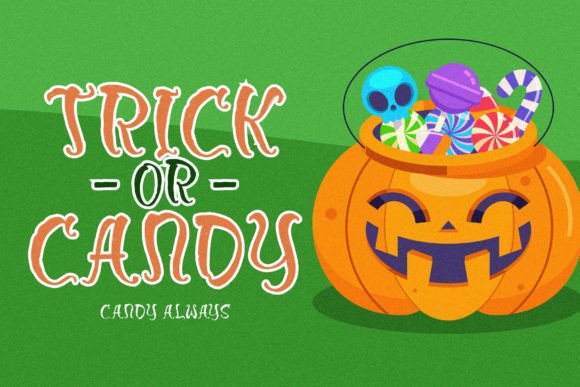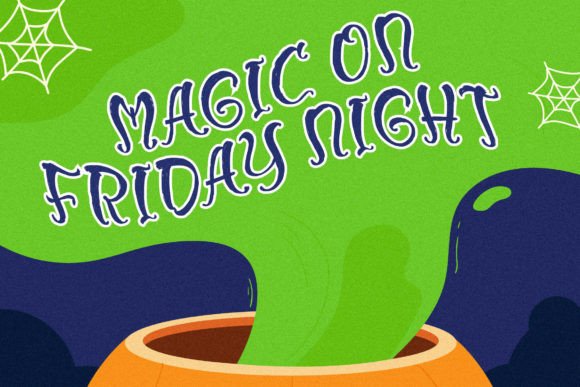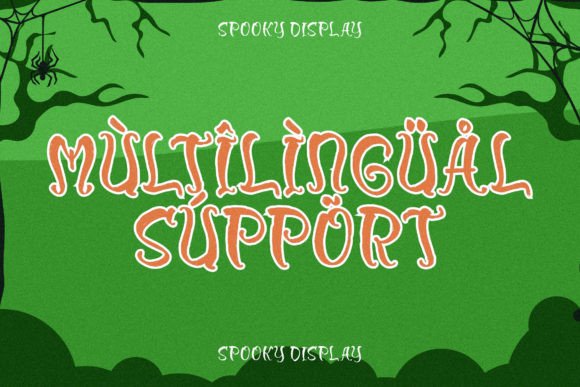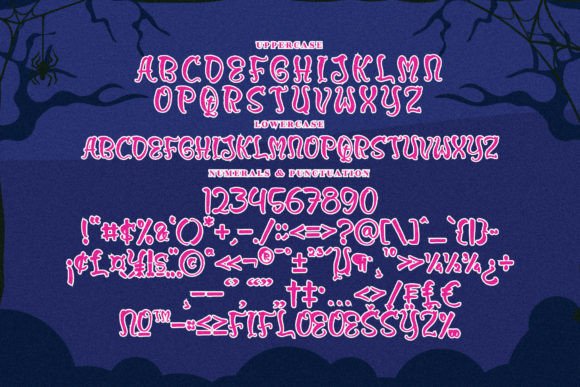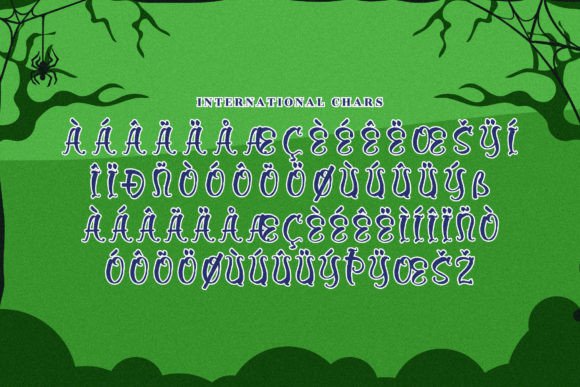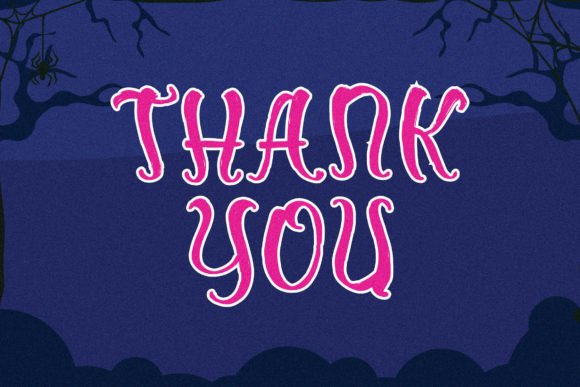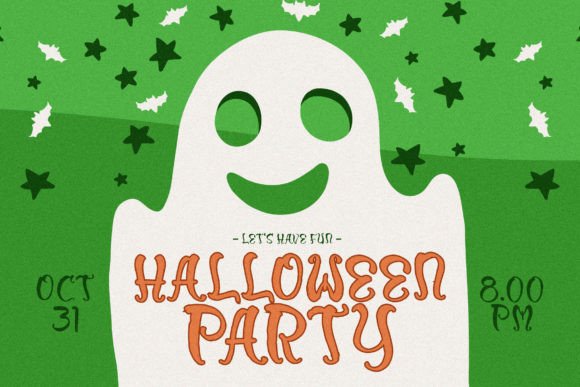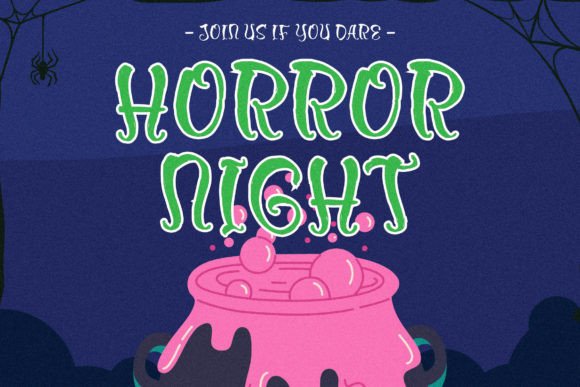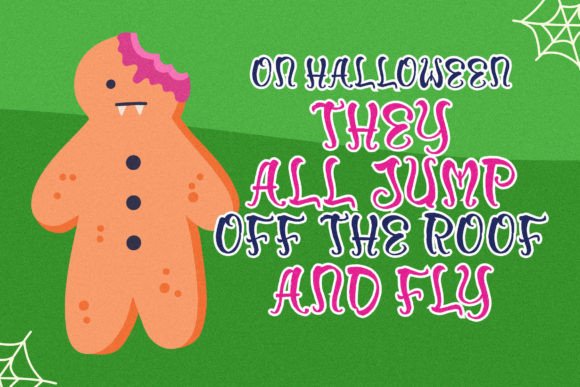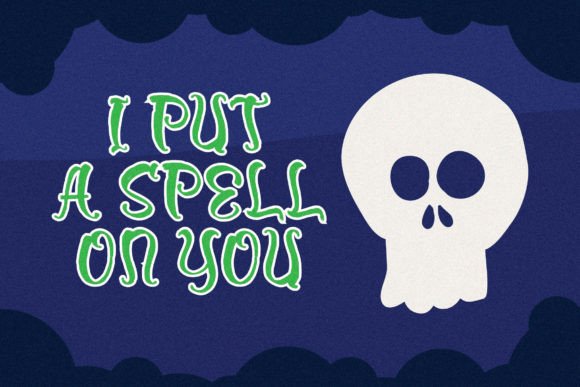
Morlew Candy Font
Morlew Candy Font Download – Fun Spooky Handwritten Script
The Morlew Candy Font download is a quirky handwritten script that blends fun with a spooky twist. With its playful strokes and unique personality, this typeface is perfect for both festive and everyday designs. Because of its versatility, it fits equally well in casual projects and professional branding.
Fun and Spooky Handwritten Style
Morlew Candy combines bold handwritten curves with a whimsical design. As a result, it gives your projects a spooky yet lighthearted tone. In addition, its unique vibe ensures your text feels engaging and original.
From Halloween invitations to fun greeting cards, this font adds character and excitement. It makes your messages stand out with a spooky charm that is still friendly and inviting. Therefore, it is a great choice for seasonal stationery.
Morlew Candy Font Download for Posters and Logos
The Morlew Candy Font download is also ideal for posters, logos, and apparel. Its bold handwritten strokes make it memorable for branding while keeping designs approachable and playful.
Versatility Across Creative Projects
This font works seamlessly in digital and print projects alike. From t-shirts and stickers to social media content and packaging, Morlew Candy adapts across many platforms, making it a designer’s reliable tool.
Readability and Creative Balance
Some spooky fonts can be hard to read, but Morlew Candy maintains balance. As a result, it can be used for headlines, product designs, and detailed creative elements.
The Morlew CandyFont download is versatile, stylish, and simple to use. In other words, it fits posters, invitations, logos, and packaging projects alike. Finally, it is a fun handwritten script that adds joy, originality, and a spooky creative flair to every design.